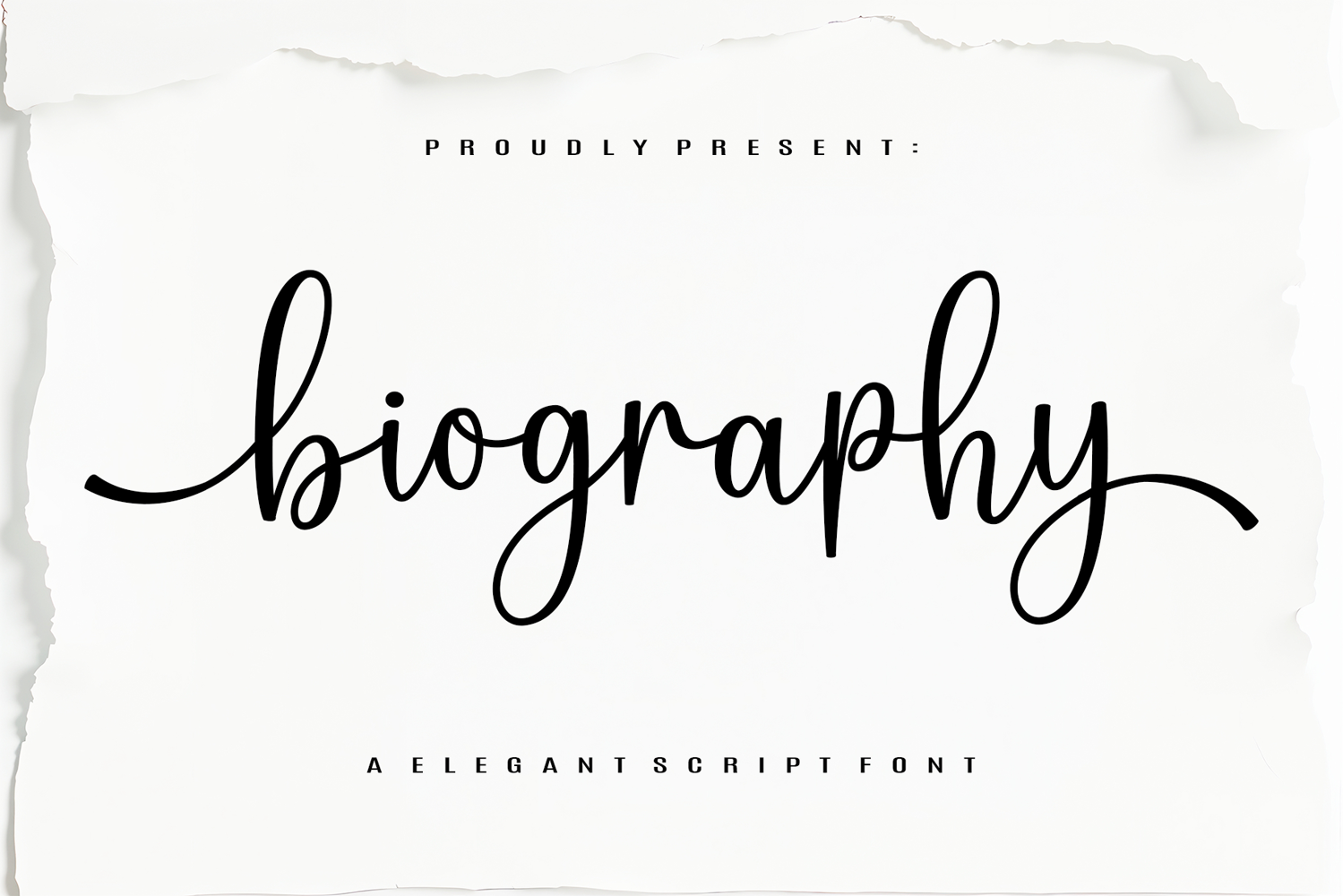
Biography
Biography is a luxury and elegance-encapsulated script font. Its exceptional beauty leaves an enduring imprint, elevating your designs with an unforgettable aesthetic charm.